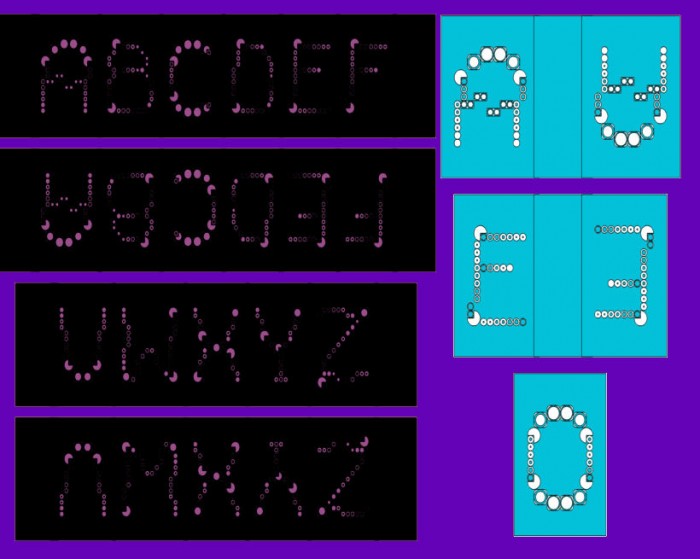
Listening to cricket matches I saw a lot of trajectories in my mind when commentators discussed the balls' flight paths and where they landed, of some incredible bowling.
Maximum rectangle size is 16x20. The LC contains the flipped reversed UC.
I see many white-in-black designs coming in, I'm adding to them as we don't see this type very often ;)
I think that I managed to give the "impression" of those occasional graphics displayed in cricket, football, tennis and other ball-based sports (it might be hawk-eye linked) that show where balls have originated from or to predict/illustrate their continuation.
A blank space is on the underscore, a filled space on the space bar.
Numerals and very basic punctuation are done :)
A cricket commentary about the path of a ball inspired this design.
Numerals and a handful of punctuation marks will follow soon.